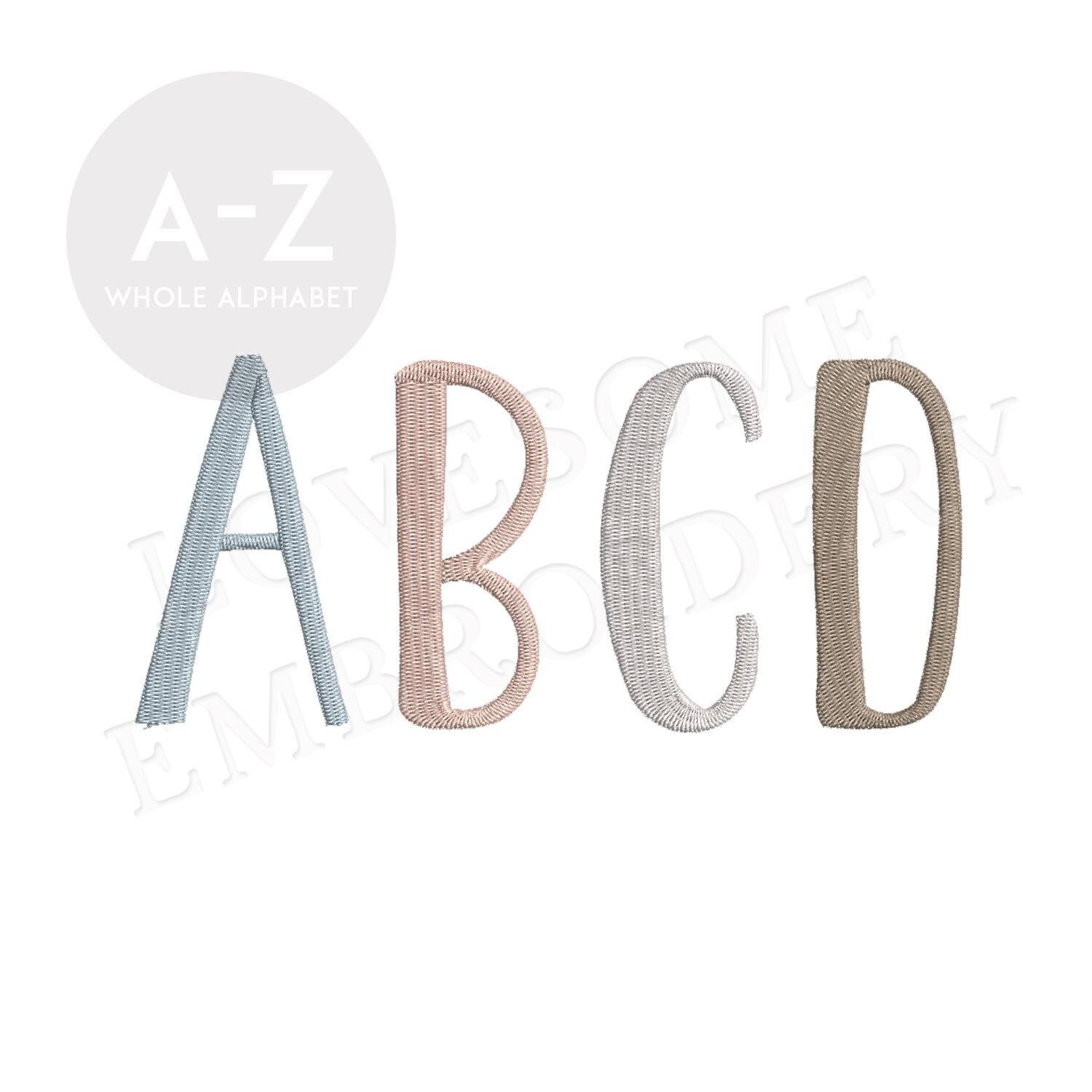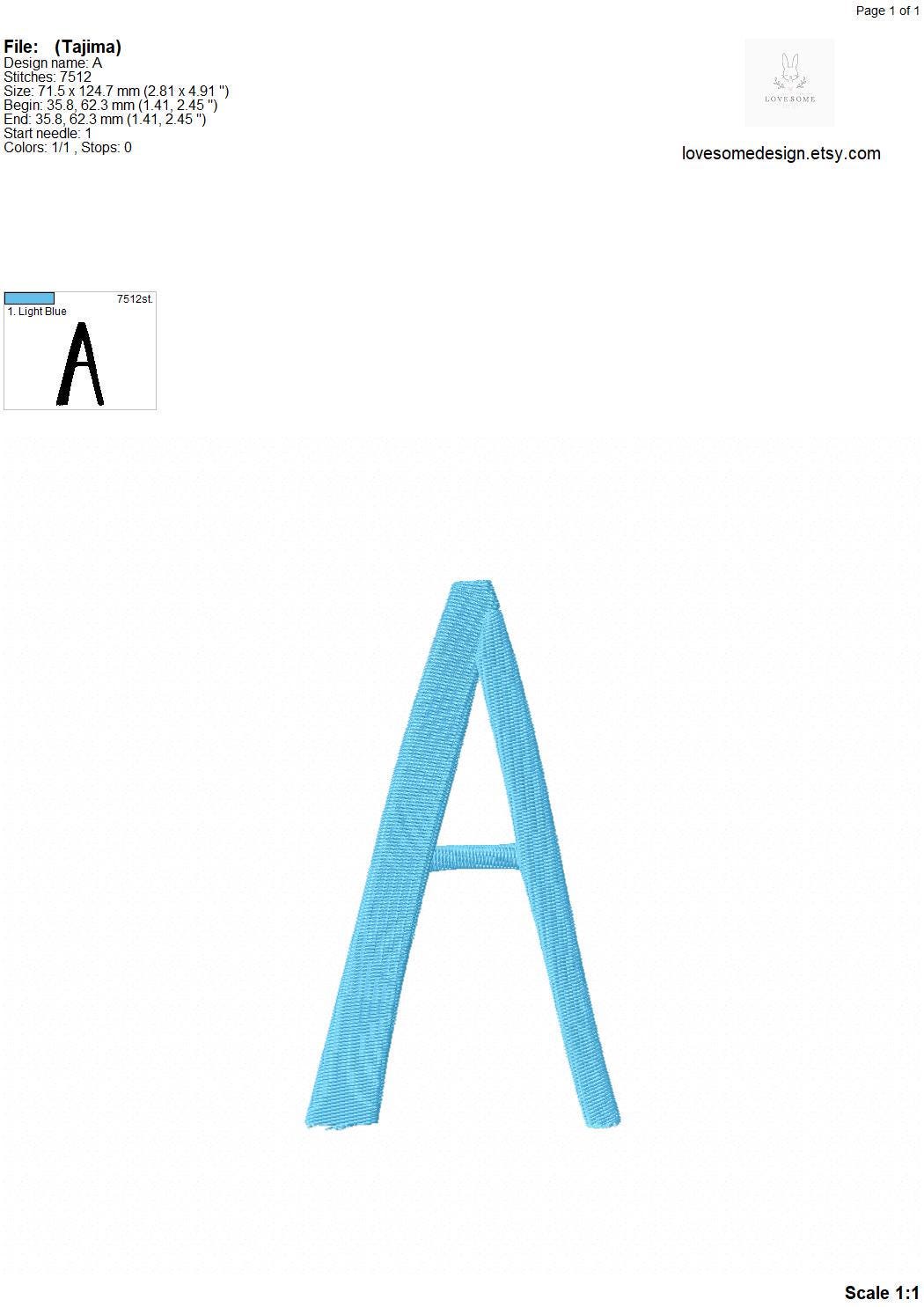
Cute Colorful Monogram 5inch BX Font A-Z Machine Embroidery Font Digital Download | Lovesome Design
This listing features a machine embroidery font set which includes fill stitch embroidery files of 26 uppercase letters A-Z in 5inch size. (For the whole set, pls see the listing images.)
This machine embroidery alphabet set is for 5x7 embroidery hoops. Great for customizing and monogramming. Either you are a DIYer or a small business owner, our embroidery fonts are perfect for your projects with its all colorful details.